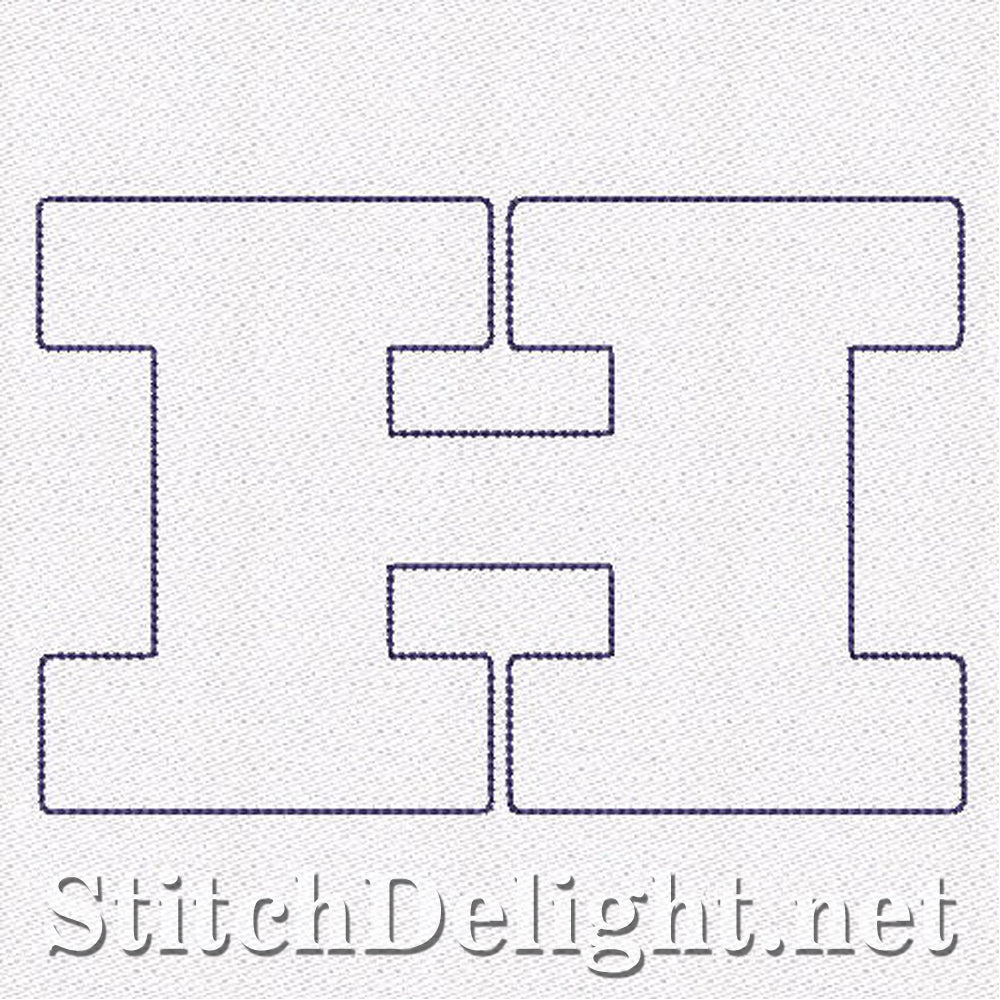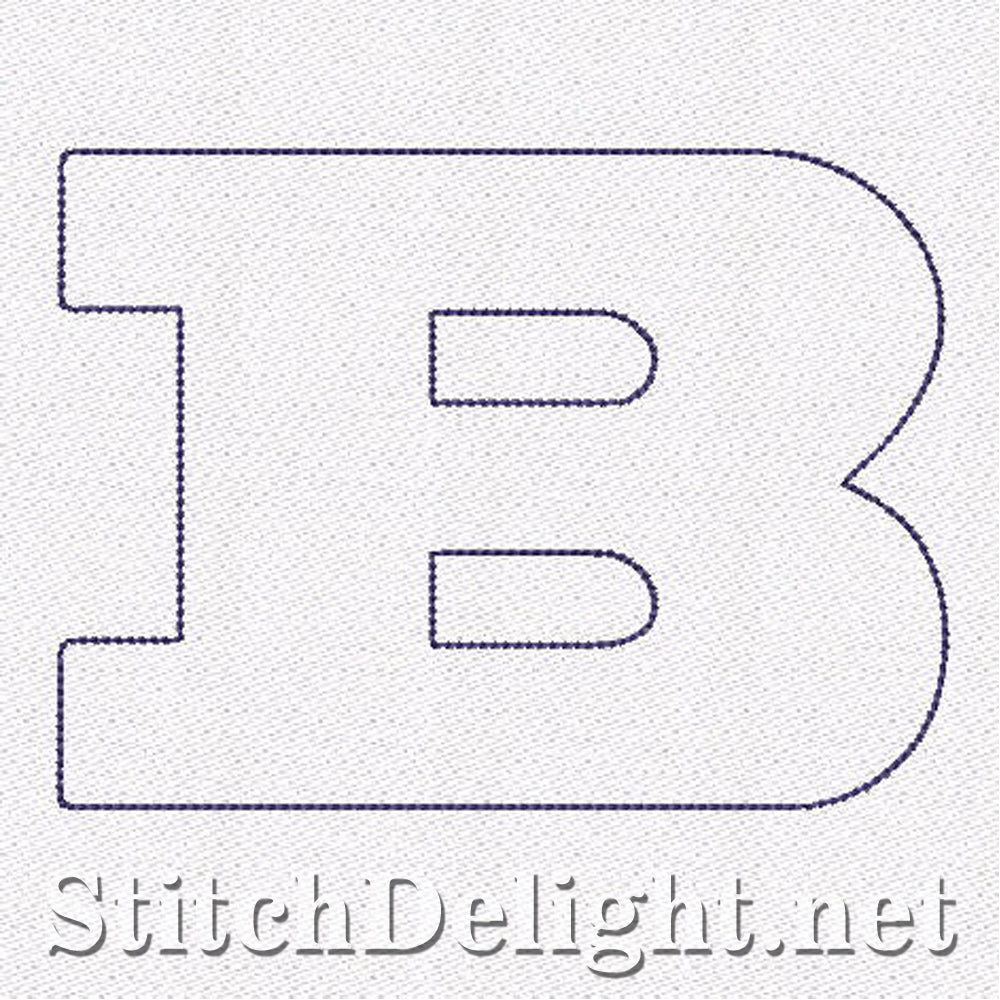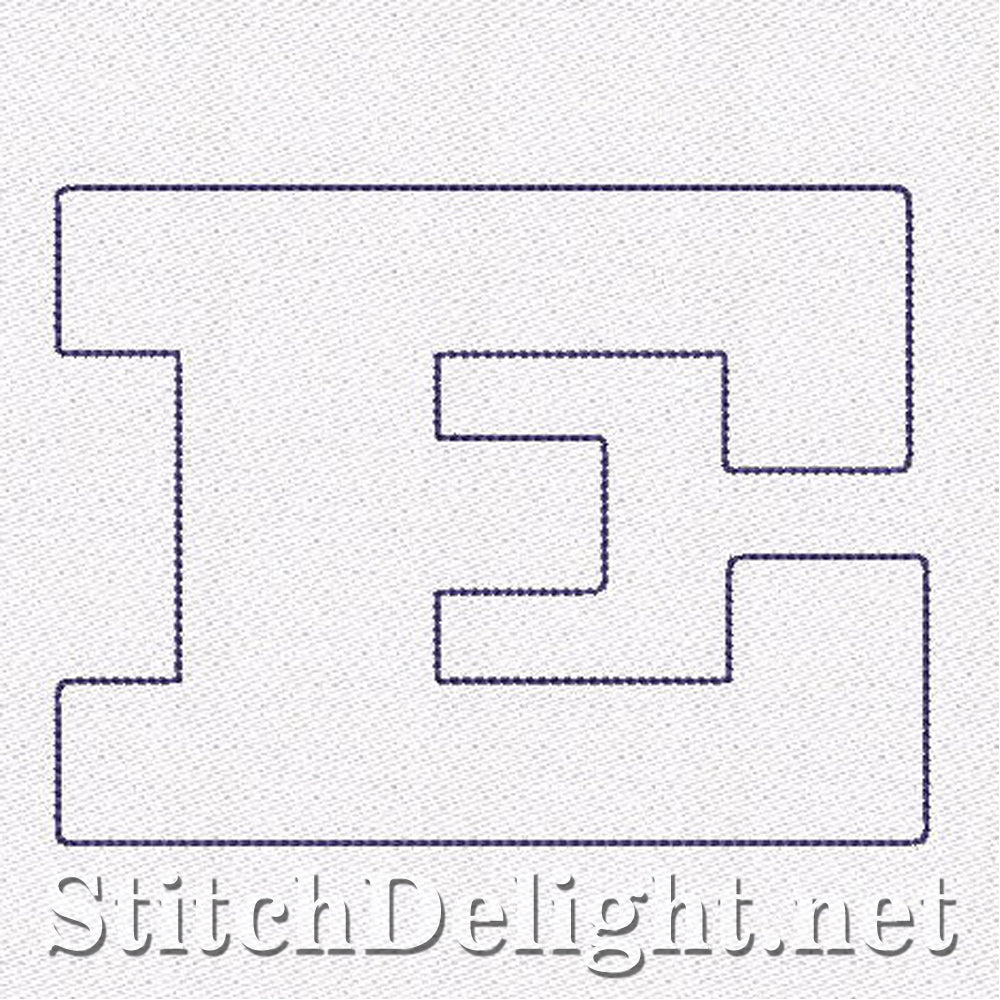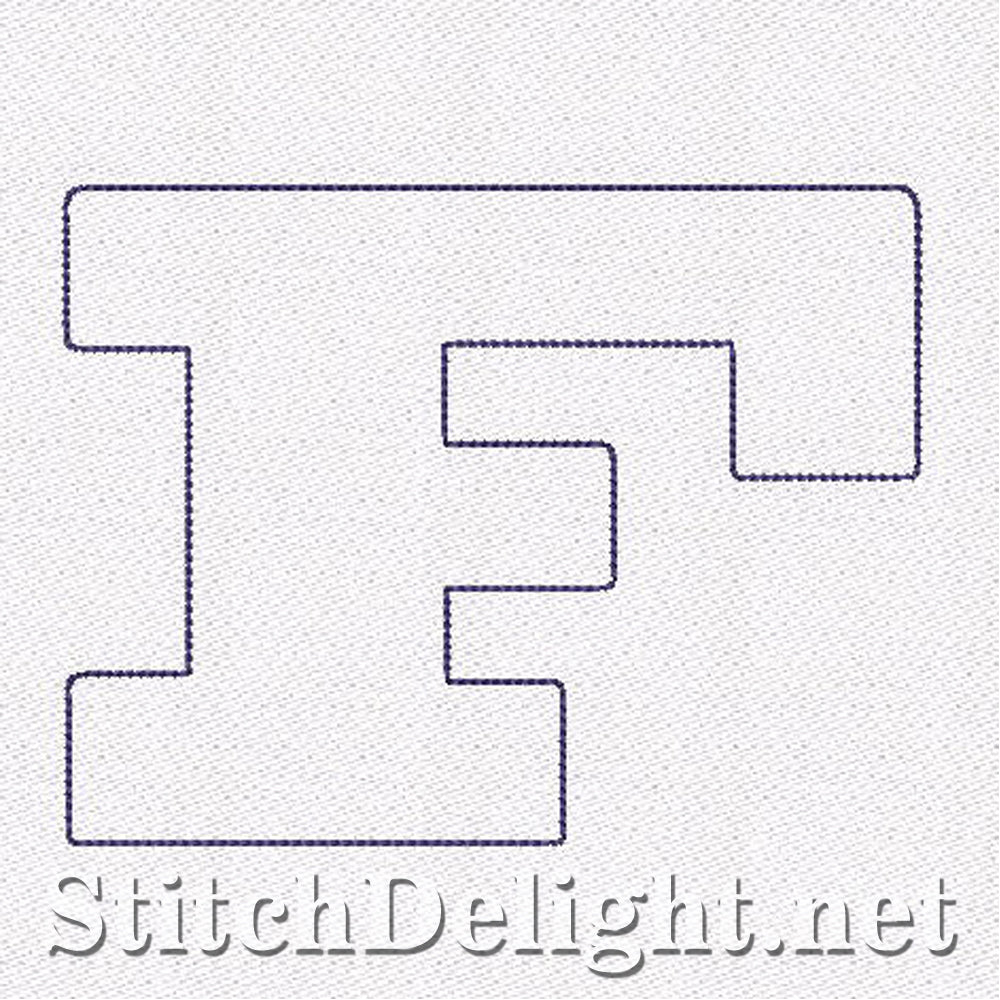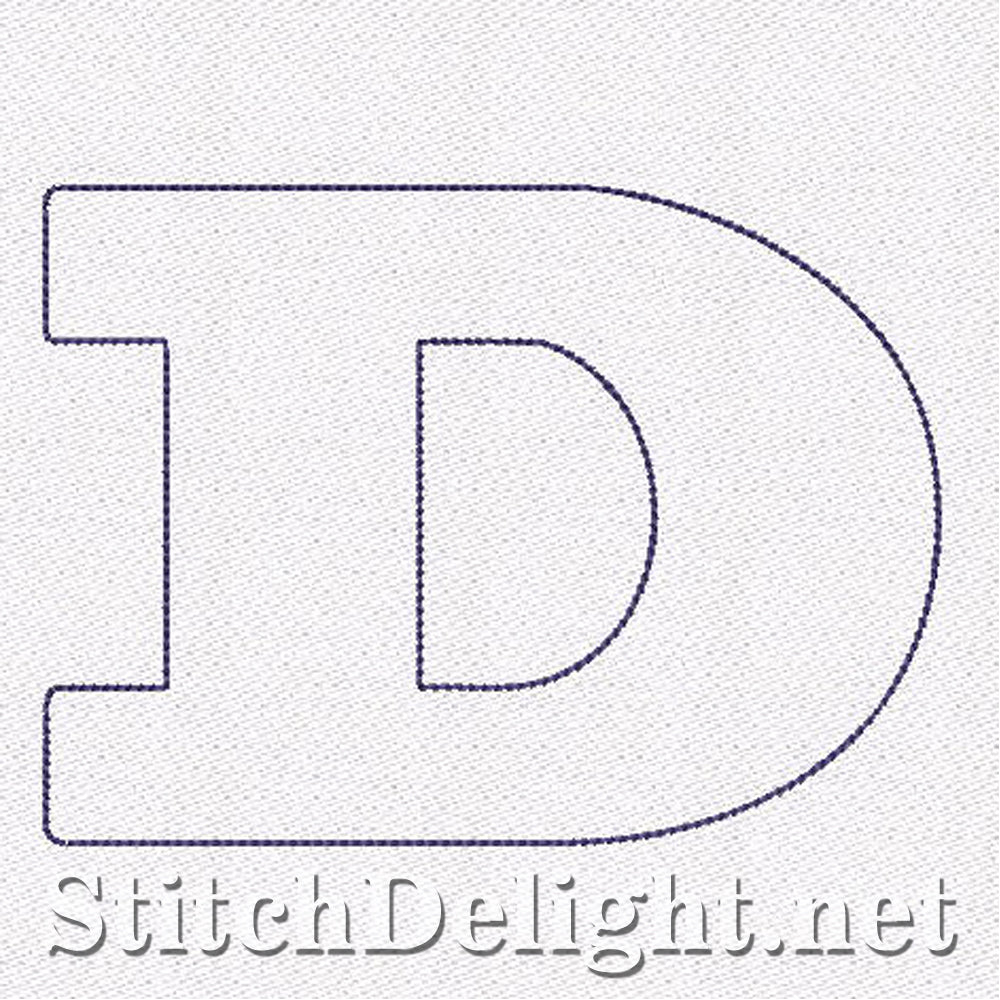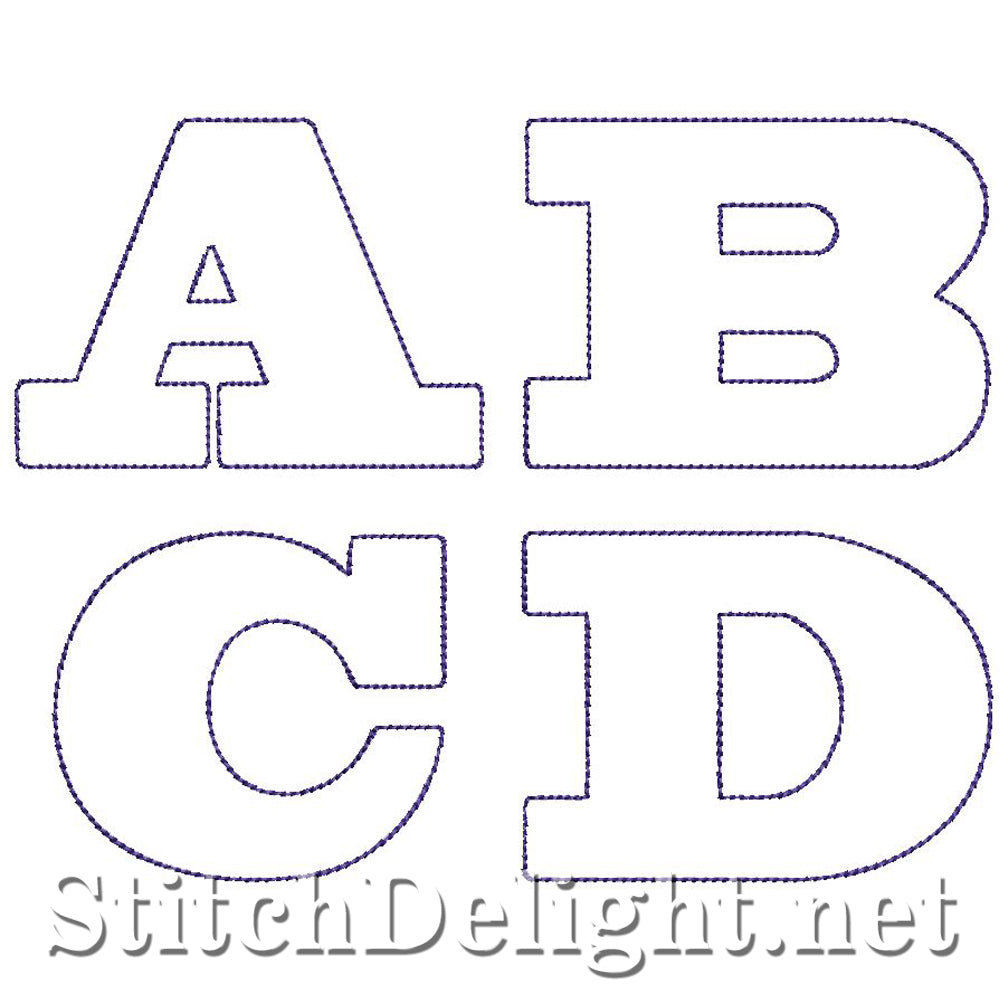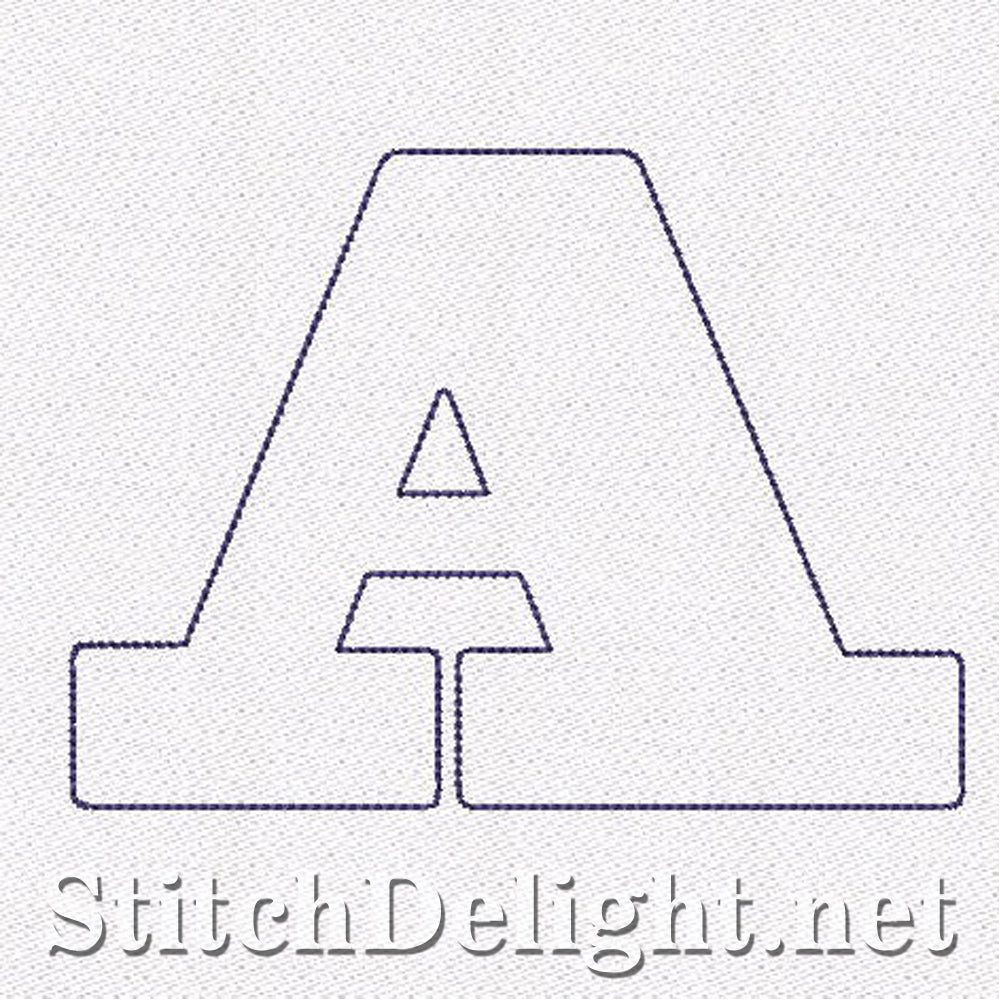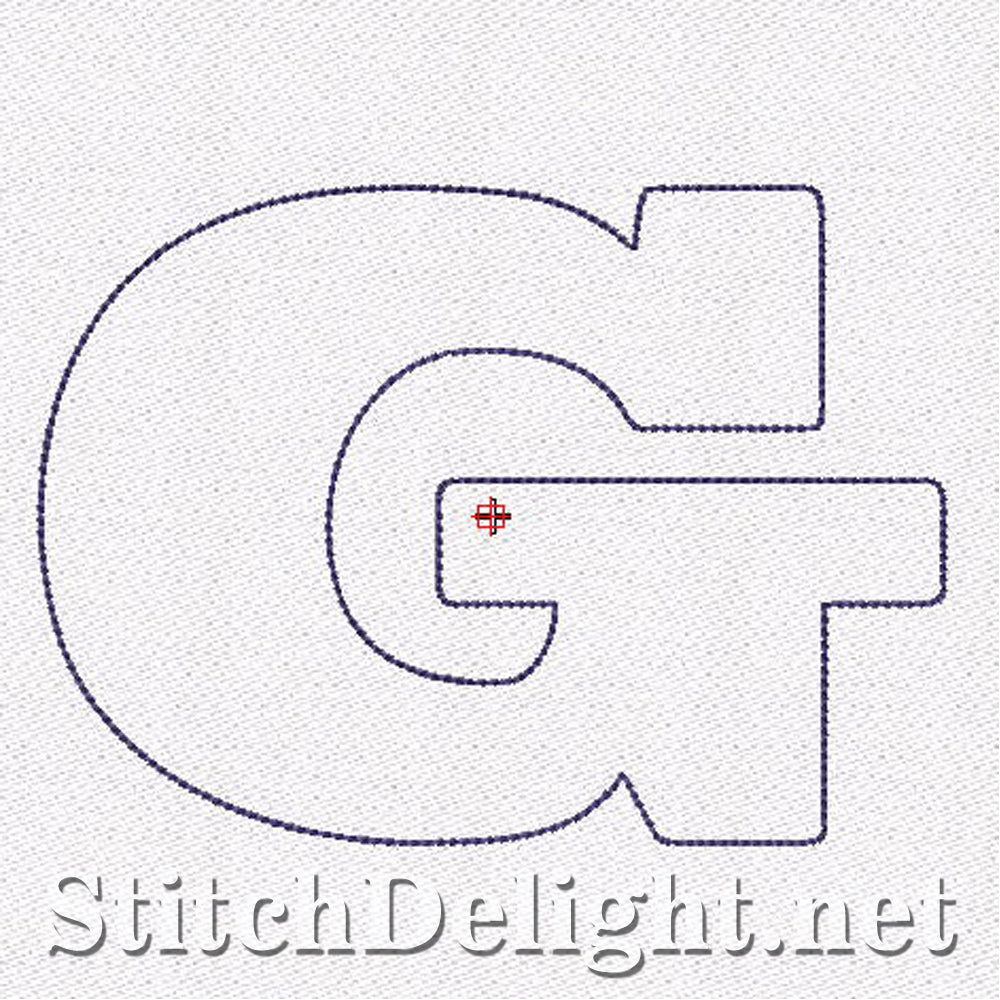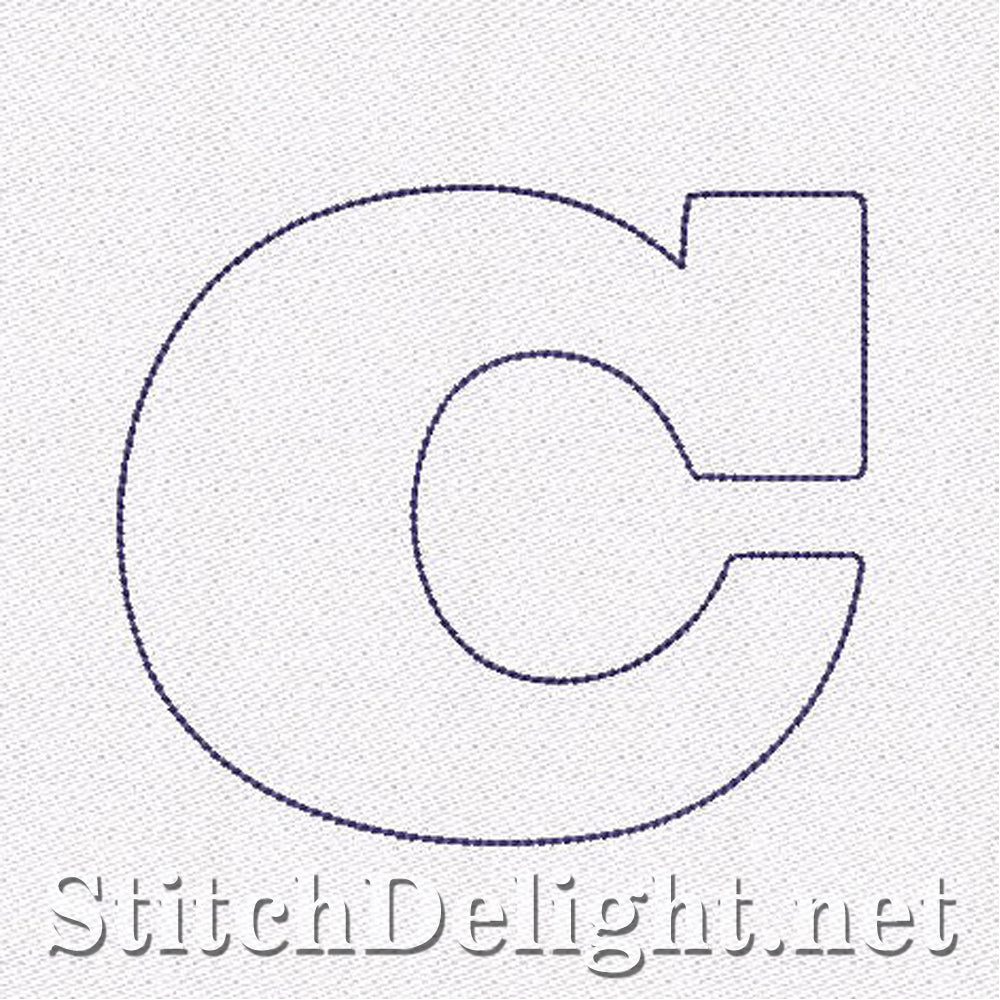
SD1178 Outline Font
Outline font (Small, Medium and Large). Ideal for sweatshirts where large block letters are required - Looks especially great when stitched in a metallic thread!
These designs are done in backstitch. Use thick batting between layers of fabric to create letters standing out in a quilted effect on fabric.